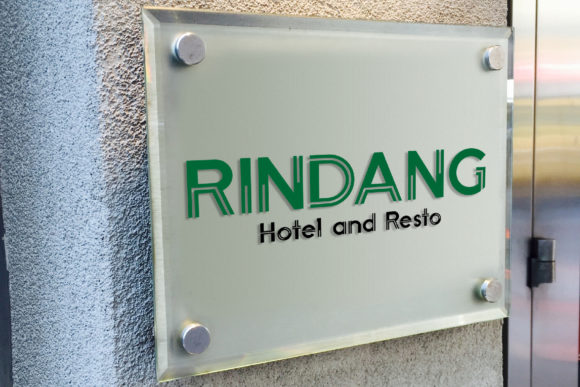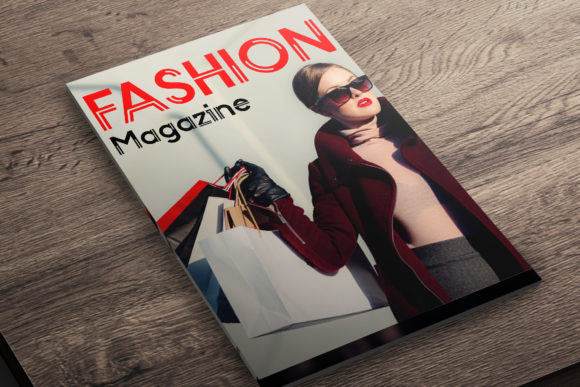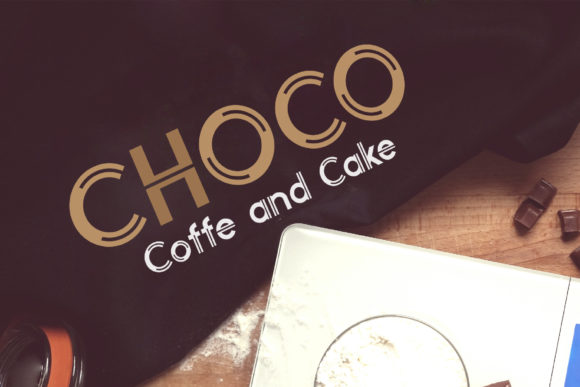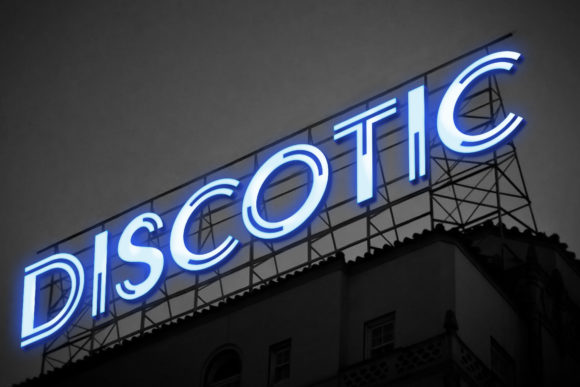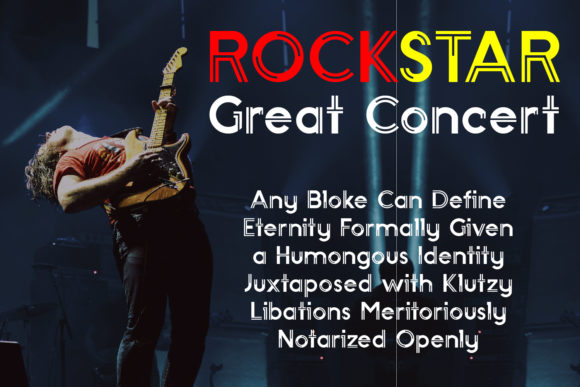
Introduction to Gallian Font
Gallian is a stylish and modern display font with a smart and dazzling style.
Use it to turn any design project into a true standout It will turn any design project into a true standout.
Key Features of Gallian Font